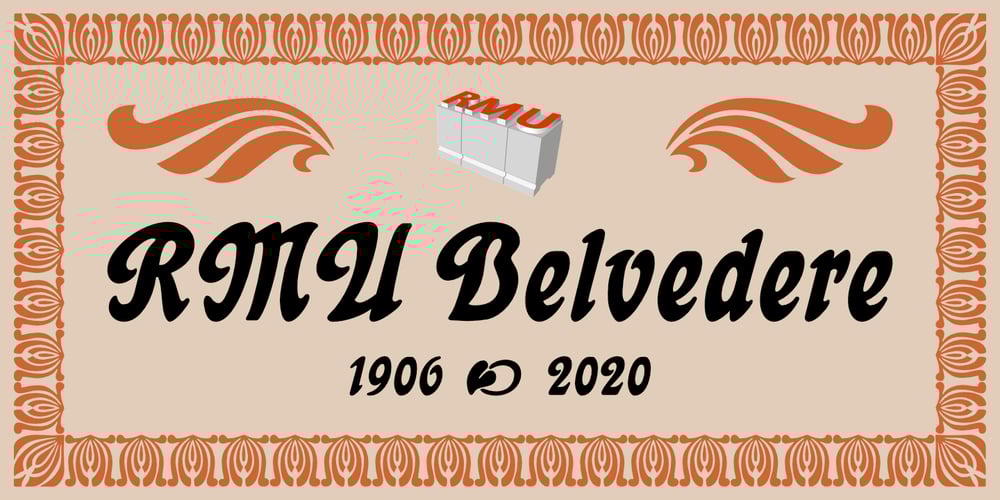
RMU Belvedere
RMU Belvedere font
RMU Belvedere Font Family was designed by Ralph M. Unger and published by RMU. RMU Belvedere contains 1 styles and family package options. RMU Belvedere is a revival of Heinrich Wieyncks design, which was released by Bauer in 1906. The font was completely redrawn and redesigned, and comes with a long s, two framing elements and two tailpieces. Get the long s by typing [alt] + b or turn the round s into a long s by using the OT feature Historical Alternative. Start making the frame by typing [alt] + >, and continue with [alt] + <. The tailpieces can be reached by typing [alt] + [shift] + p or [alt] + p respectively.